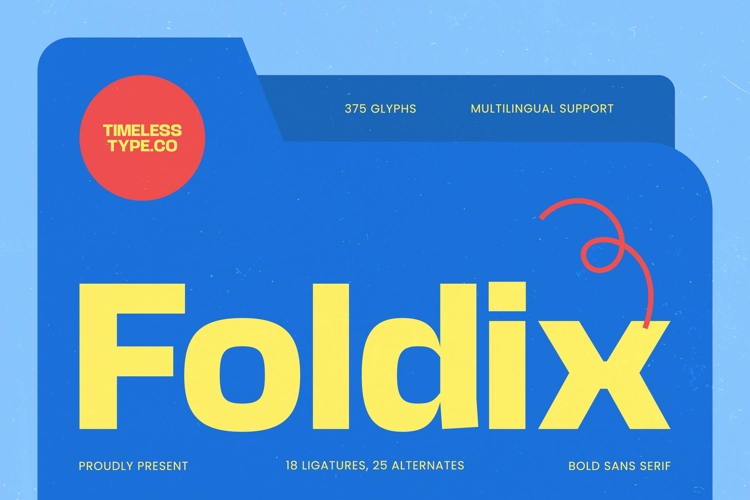
Foldix Bold Sans Serif
Foldix – Bold Sans Serif
Command attention with unparalleled visual strength and a commanding presence that defines modern aesthetics. Foldix – Bold Sans Serif is a masterclass in impactful typography, meticulously crafted for designers who demand a bold and authoritative look. Its substantial weight and clean geometric structures create a high-contrast silhouette that instantly grounds any layout, ensuring your message remains the focal point of every composition. By balancing modern minimalism with a powerful personality, Foldix – Bold Sans Serif provides the perfect foundation for a memorable brand identity.
Unleash your creative potential with a comprehensive set of professional features tailored for global communication. This powerhouse typeface includes 375 premium glyphs, providing a robust toolkit for any high-end design workflow. Designers can further elevate their work using 18 custom ligatures and 25 unique alternates, allowing for a bespoke visual experience that feels both exclusive and polished. With its extensive multilingual support, Foldix – Bold Sans Serif adapts seamlessly across global markets, making it incredibly versatile for international projects and diverse audience engagement.
Transform your creative vision into a premium reality with a typeface optimized for success. The unapologetic boldness of Foldix – Bold Sans Serif makes it the perfect choice for luxury branding, iconic logos, and dynamic product packaging. Its exceptional legibility and modern character are ideally suited for impactful headlines, digital advertising, and editorial design. Whether you are developing an urban fashion campaign or a tech-forward startup identity, this font delivers a sophisticated and professional edge.